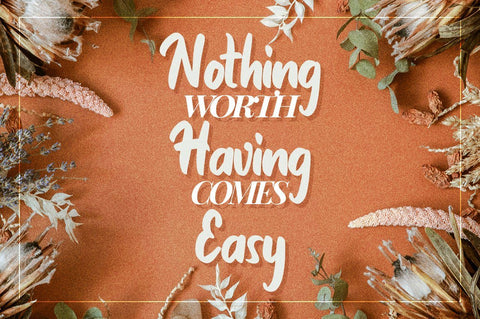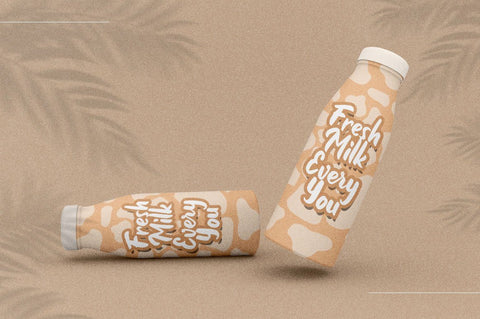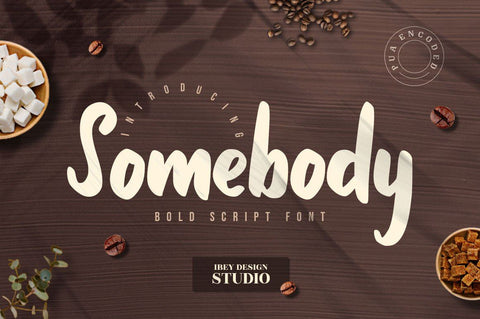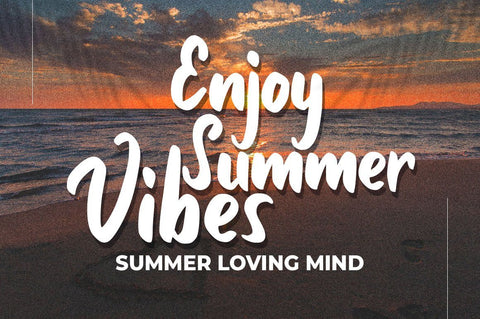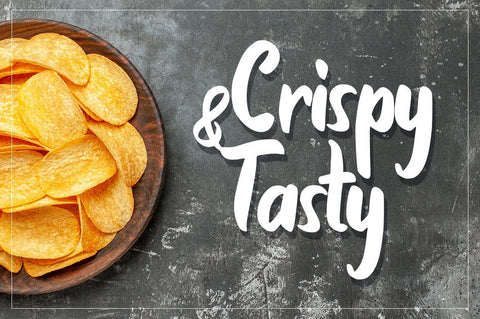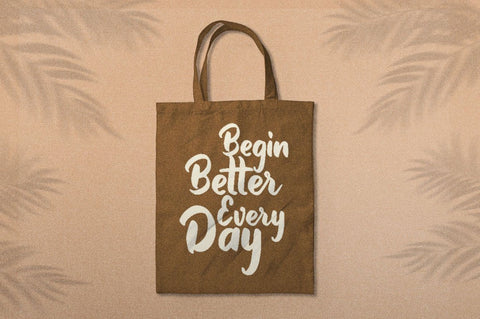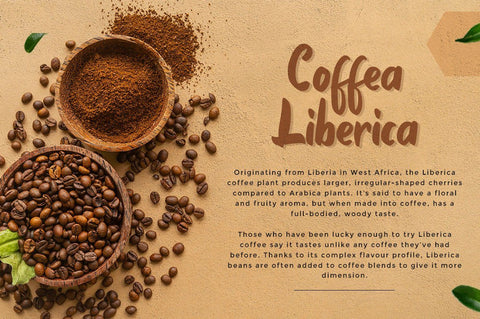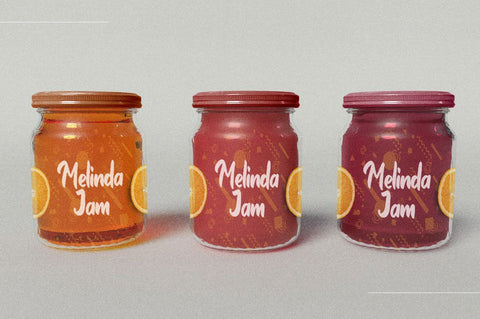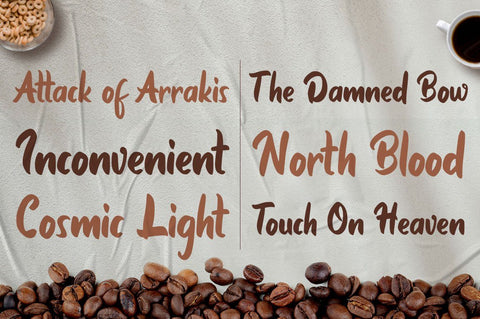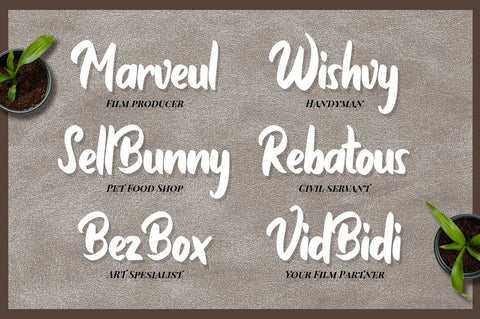
Somebody - Bold Script font
Somebody Bold Script Font is a lovely paint brushed script font, featuring well balanced characters.
Somebody Bold Script Font is PUA encoded which means you can access all of the glyphs and swashes with ease! Get inspired by its versatility and create ravishing designs.